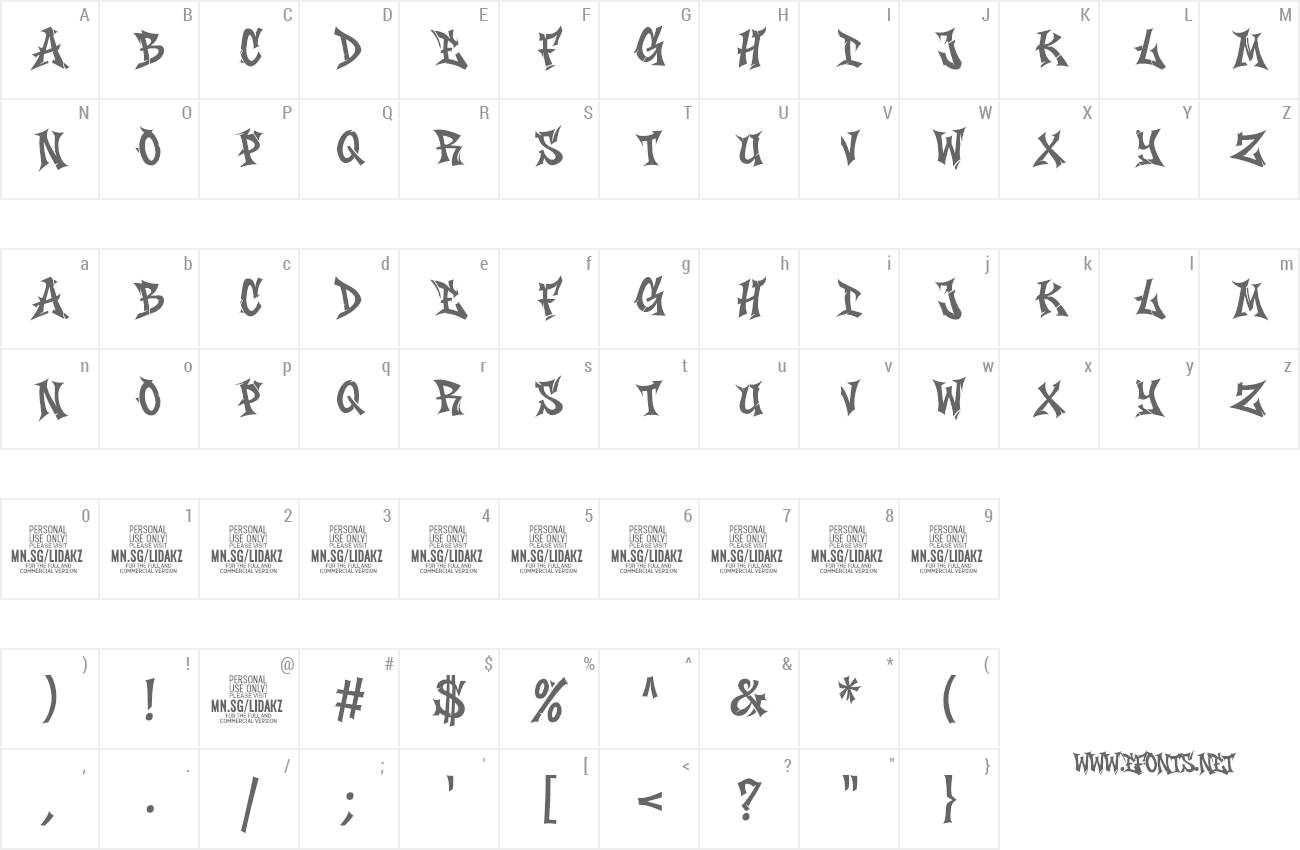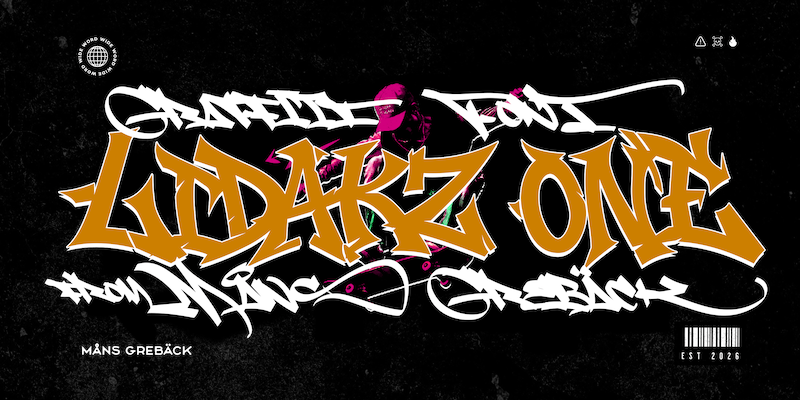
Preview and download Lidakz One Font. Created by Måns Grebäck in Script Graffiti styles with Free for personal use license.
NOTE: This font is for PERSONAL USE ONLY! To purchase a commercial license, visit: https://www.mansgreback.com/product/lidakz-one Lidakz One is a sharp, energetic graffiti font with a raw, hand-cut feeling. The letters are built from angular strokes with pointed terminals and uneven rhythm. It has a street edge, keeping the shapes readable while aggressive and playful. For questions, please visit https://mansgreback.com/faq |